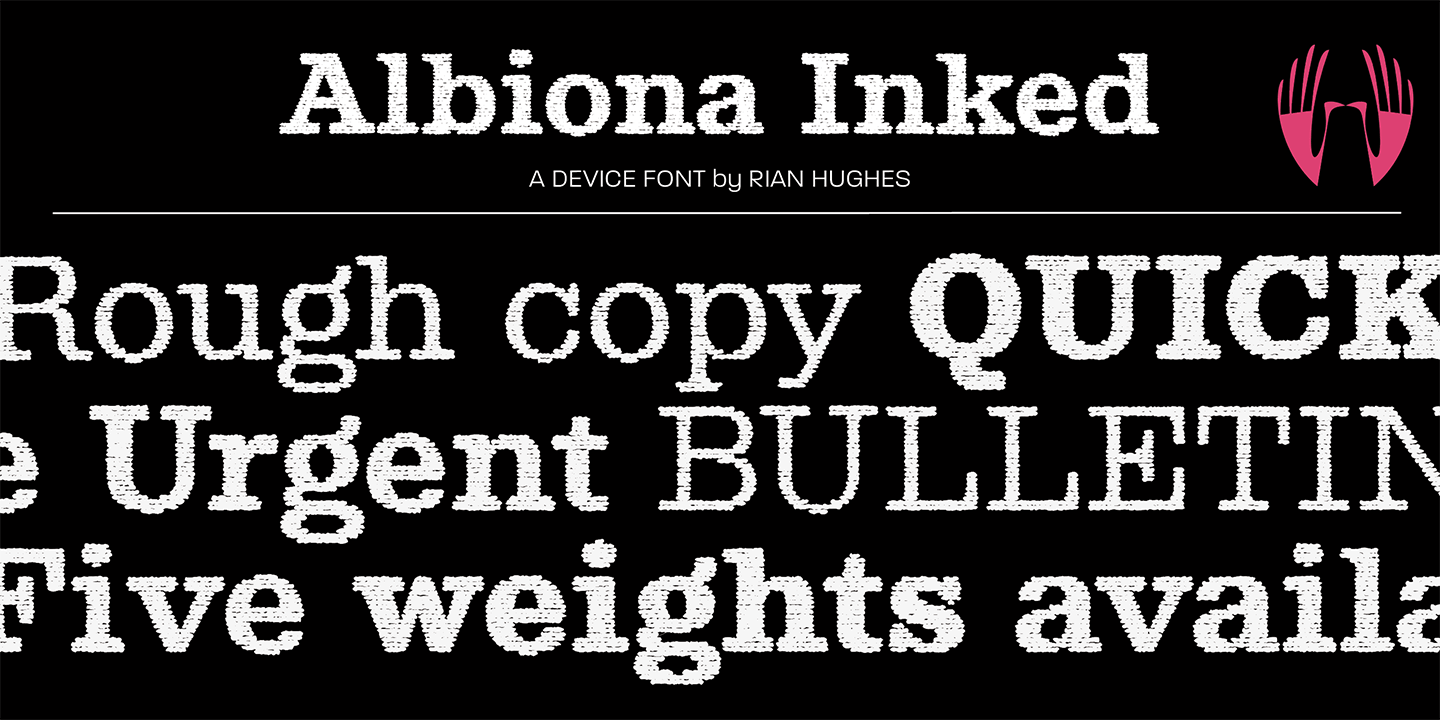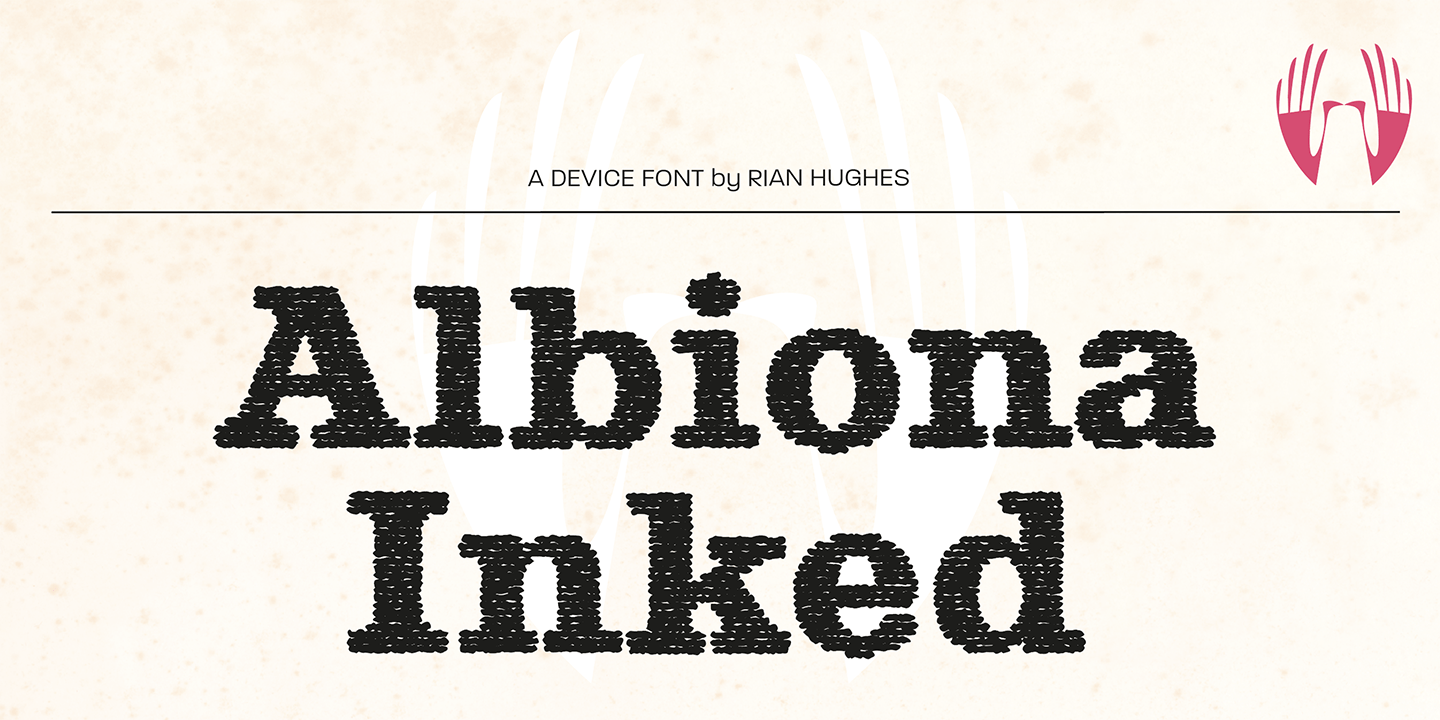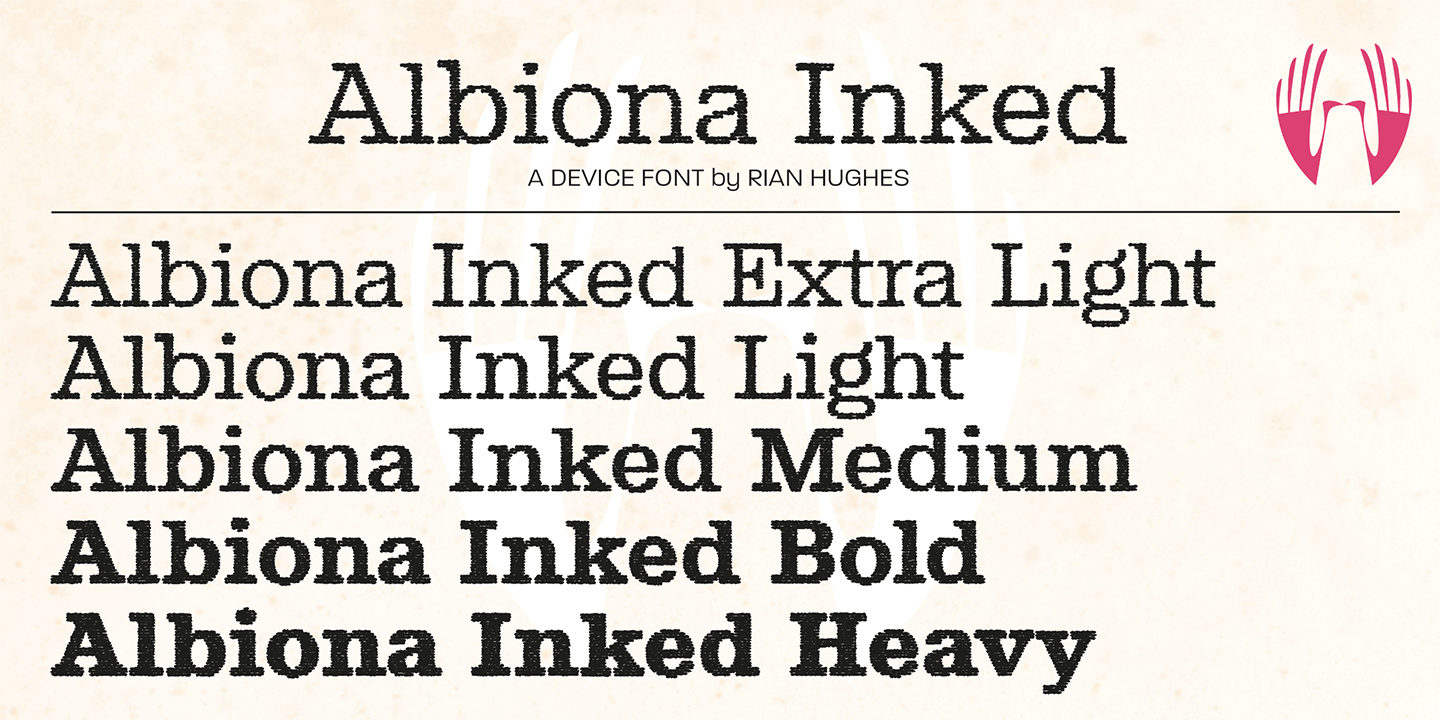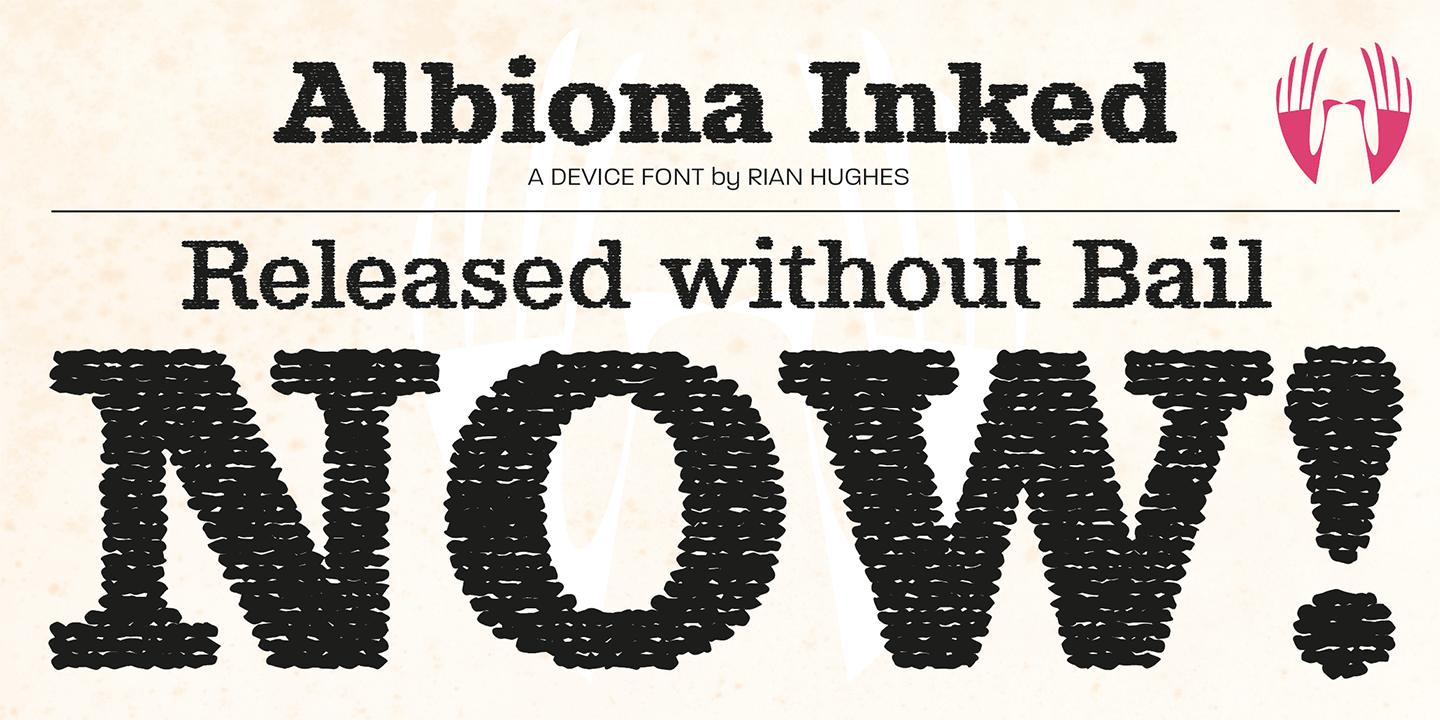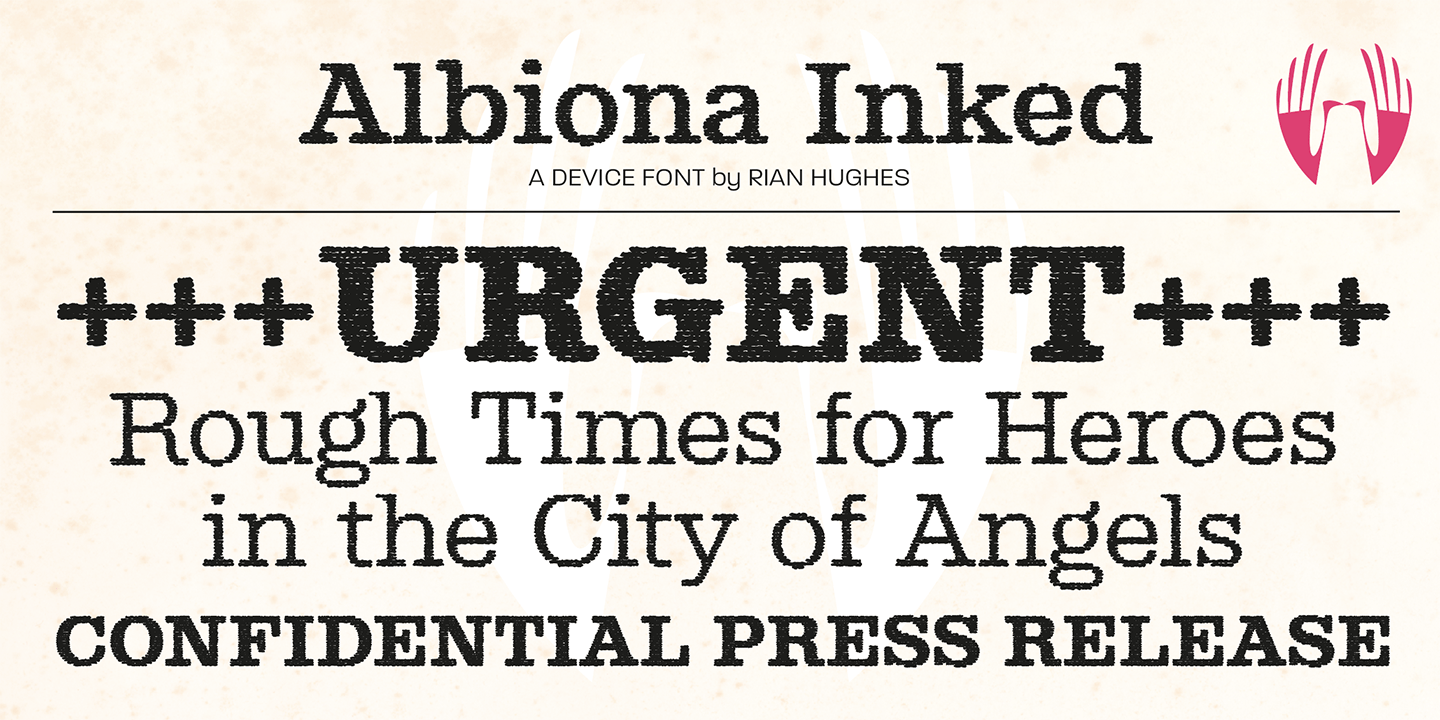
Albiona Inked
Font Family by Device Fonts
Albiona Inked is a vintage distressed version of Albiona that evokes the urgency of teletext printers, typewriter ribbons and authentic hot-metal type on rougher paper.
A contemporary slab-serif, it revisits aspects of Robert Besley's classic Clarendon, designed around 1842 for Thorowgood and Co. and named after the Clarendon Press in Oxford.
Subsequently extended by Stephenson Blake in the 1950s, Albiona adds the inwardly-curved stroke terminals of the same foundry 's Grotesque series, and includes italics and old-style and tabular numerals. The original Clarendon's ball serifs and calligraphic eccentricities have been rationalised and streamlined for functional contemporary uses.
The family consists of five weights plus italics and a stencil, and its clean readable style is perfect for both extended text as well as headline setting.
A rounded 'soft? version is also available.